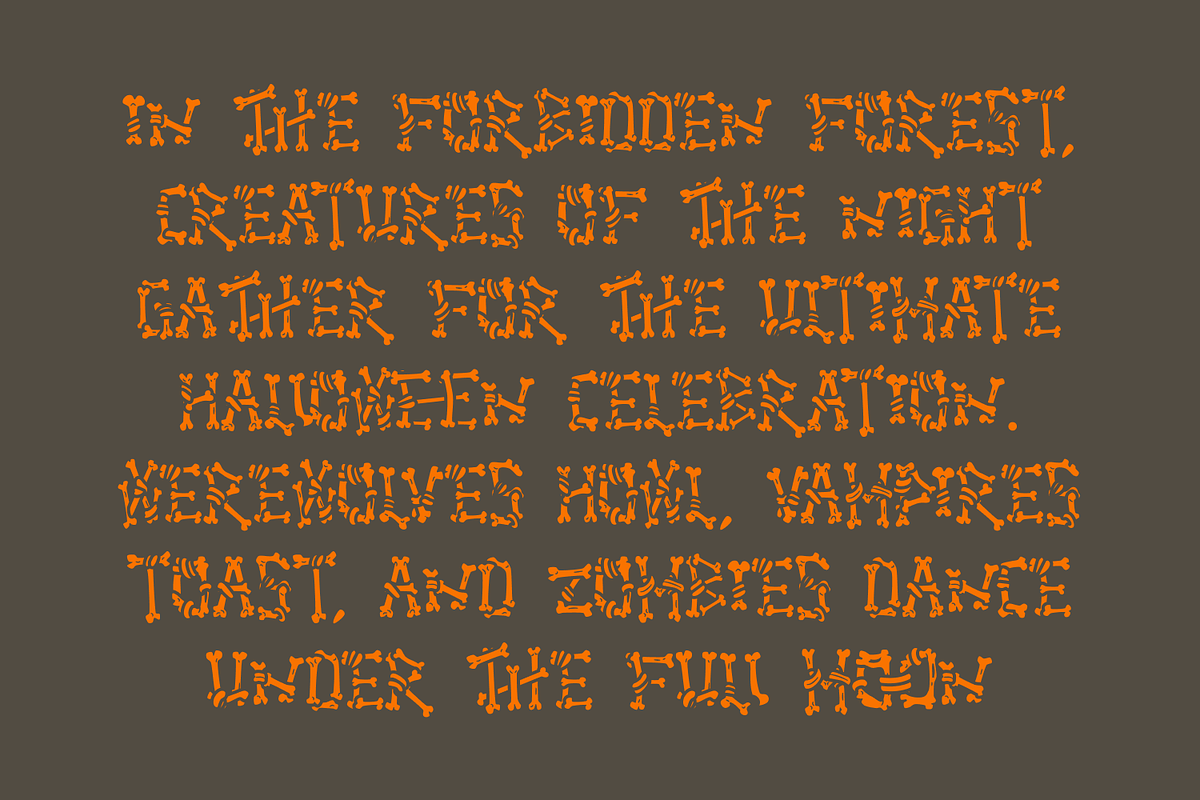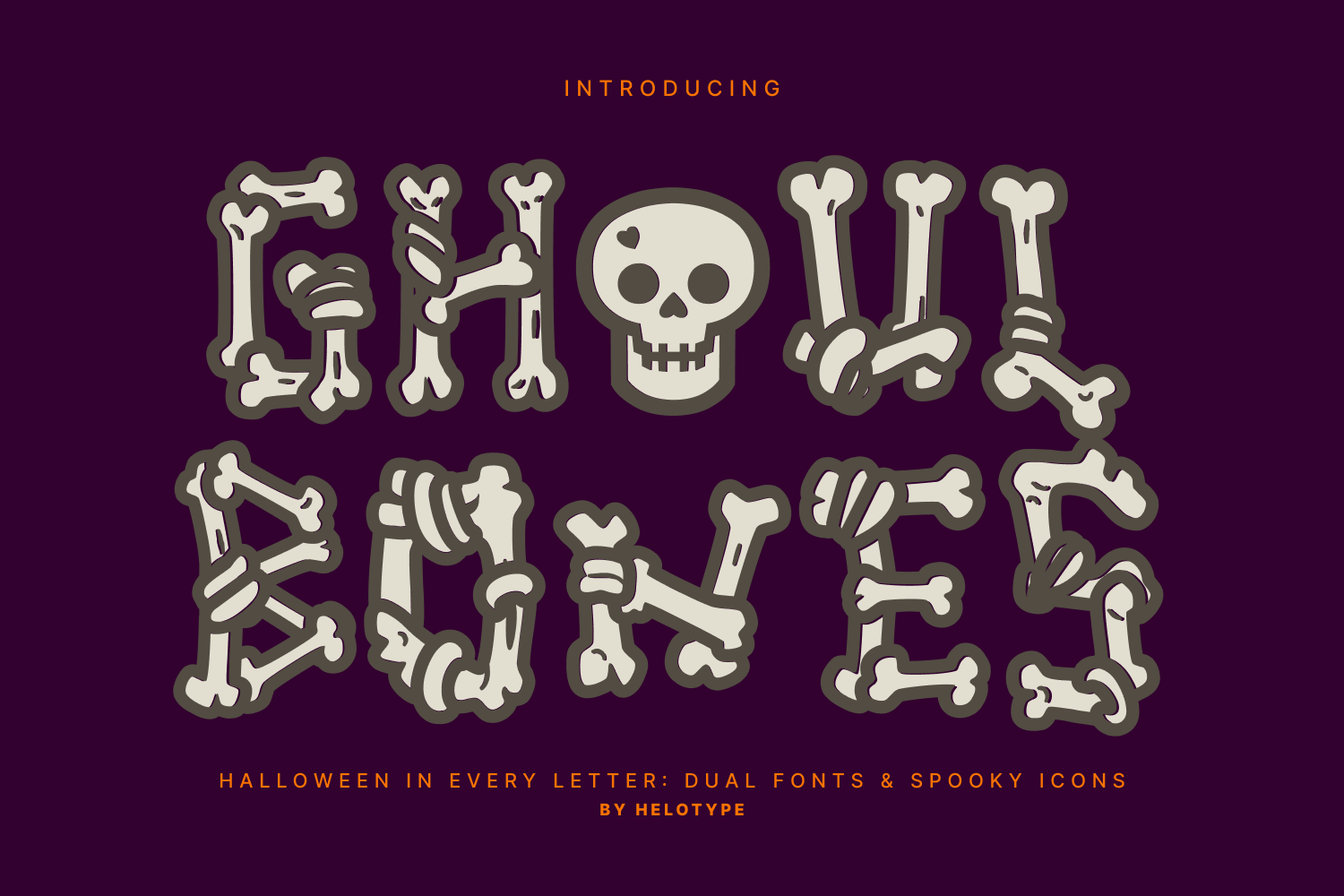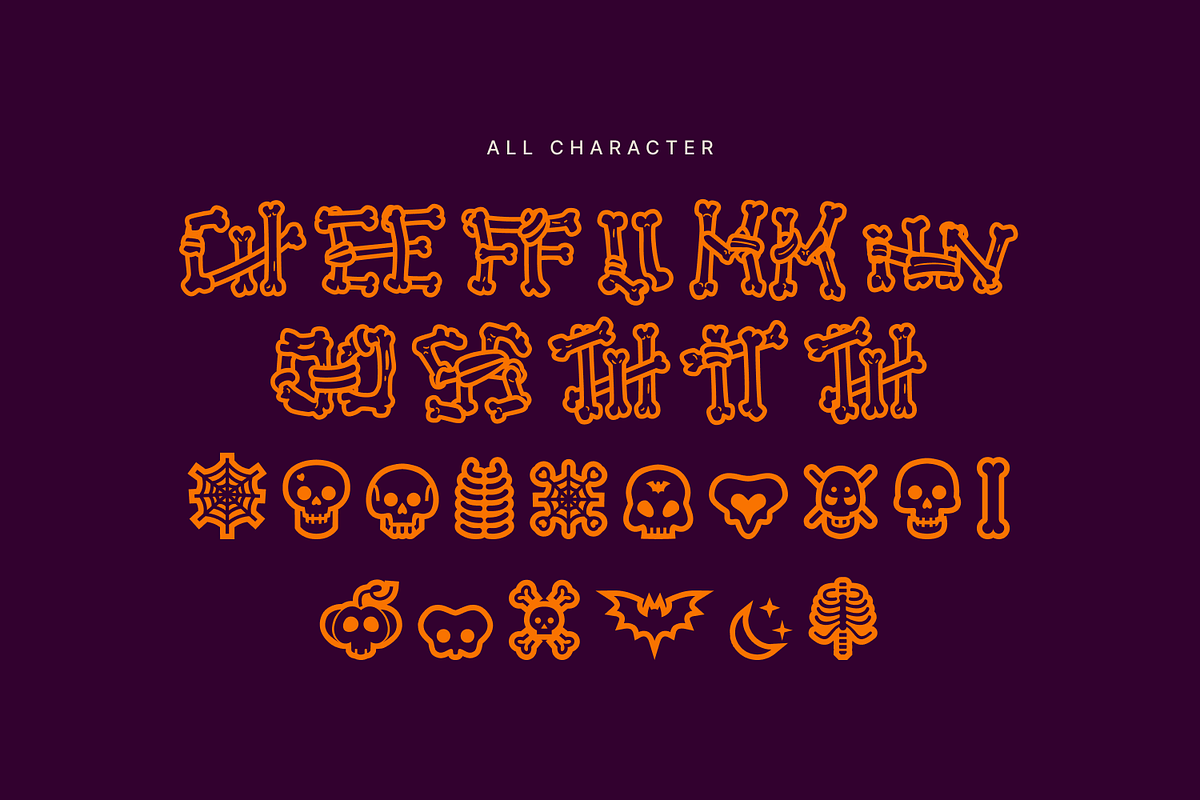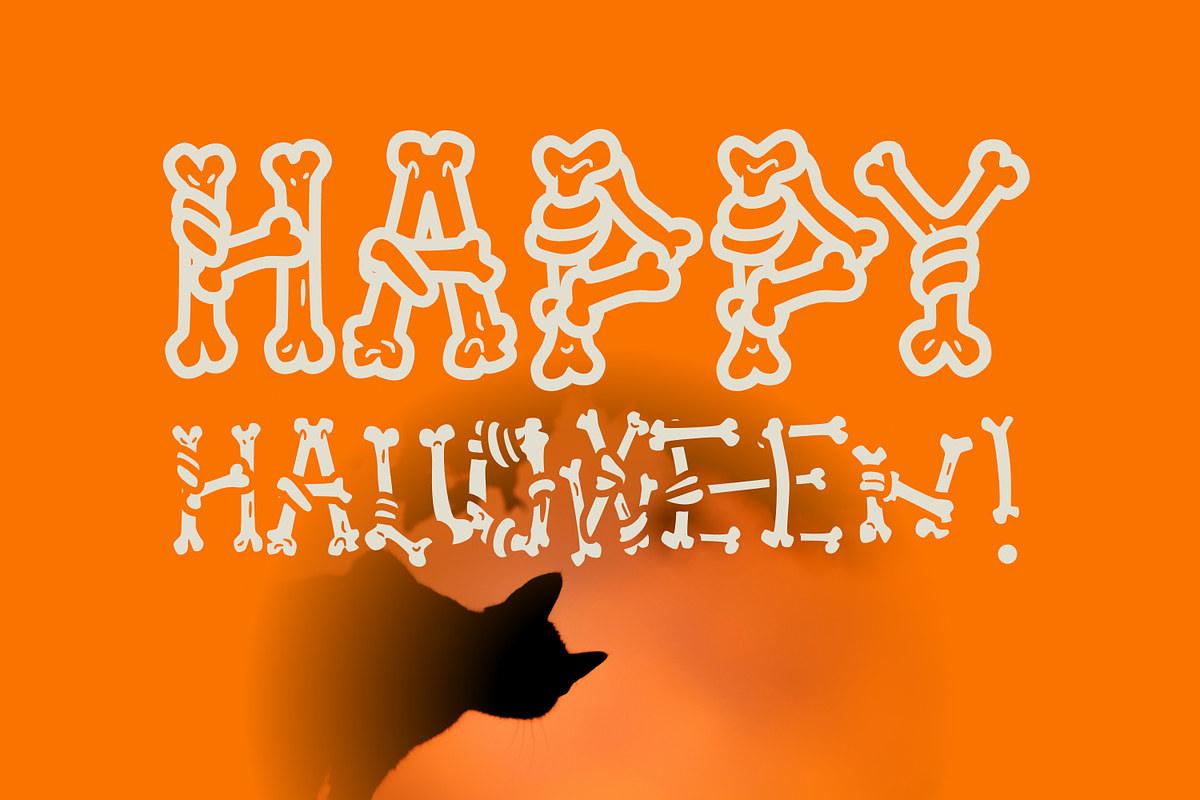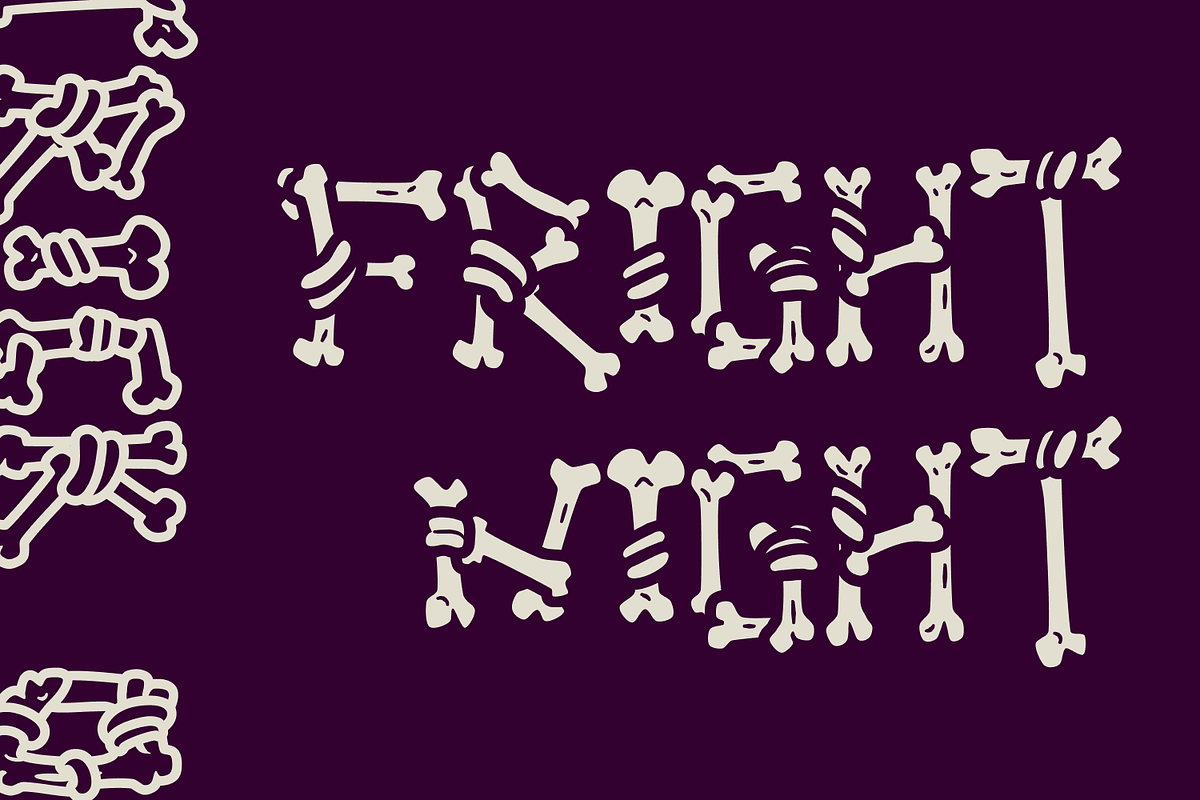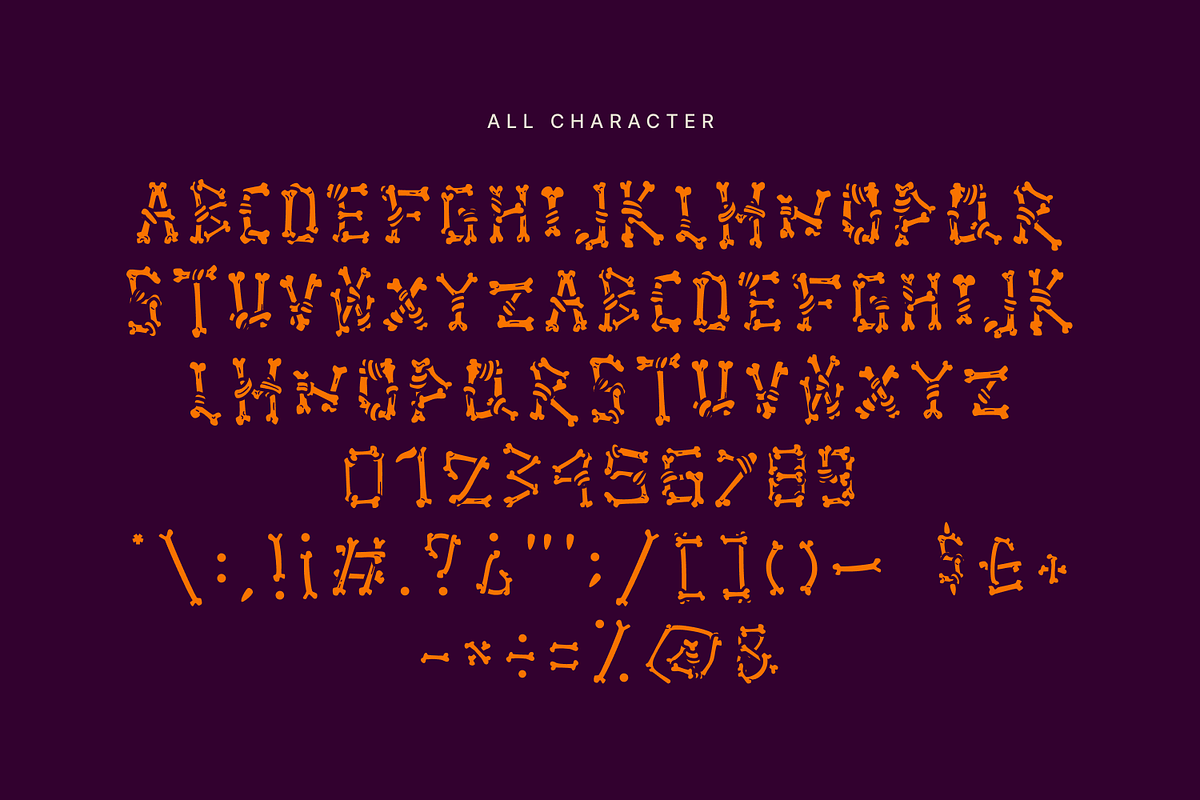
Ghoul Bones Display Font
Add a chilling touch to your Halloween designs with Ghoul Bones! This dual font and icon set offers endless possibilities for creating spooky and eye-catching graphics. From haunting posters to wicked invitations, let your creativity run wild with this bone-chilling typeface.